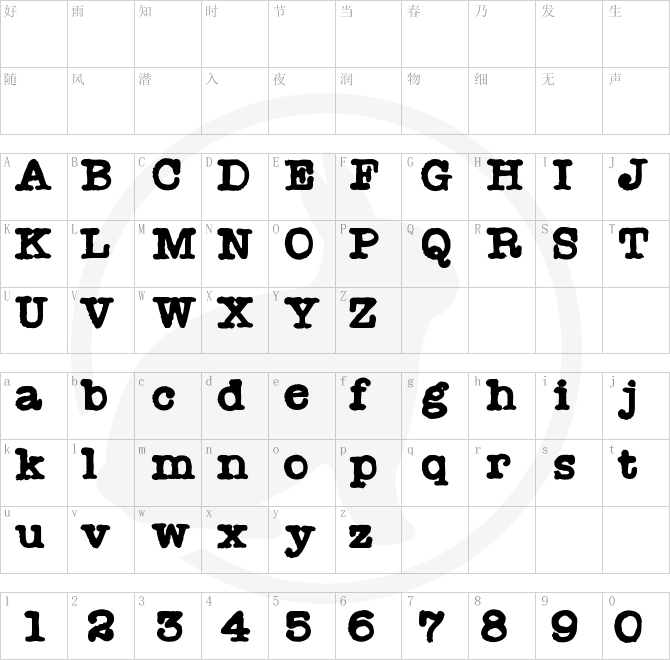
- Font Name:Radio Newsman
- Full Name:Radio Newsman
Radio-Newsman-copy-1-.ttf is a very beautiful artistic font, Radio-Newsman-copy-1-.ttf is widely used in the design and printing of various books and pictures,Radio-Newsman-copy-1-.ttf has a strong visual impact,Radio-Newsman-copy-1-.ttf is a commonly used font in newspapers, magazines and books, and is used in posters, e-commerce Poster design, store design, logo design, font design and other fields.Radio-Newsman-copy-1-.